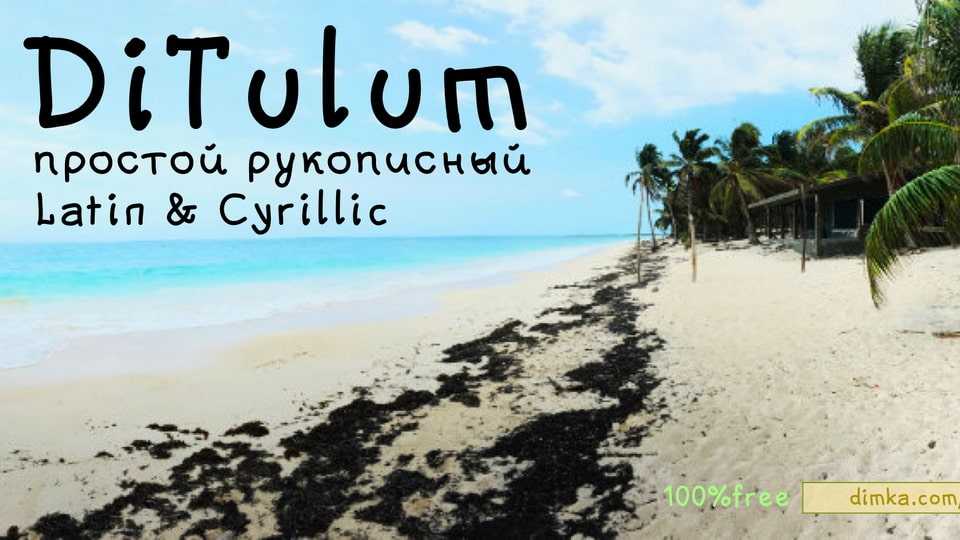
Download DiTulum font, a casual style handwritten typeface with its natural strokes that reflect on good and worry less times, perfect for projects that reflect positivity and joy.
Designer: Dimka